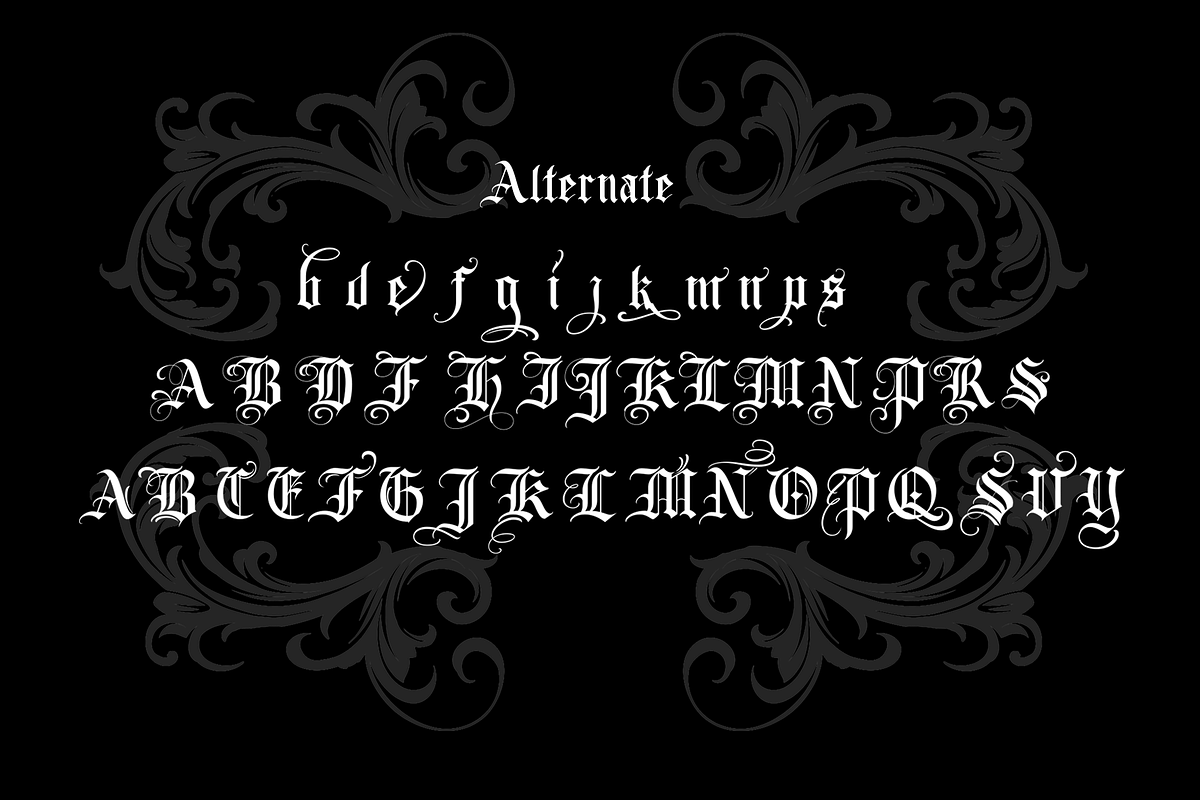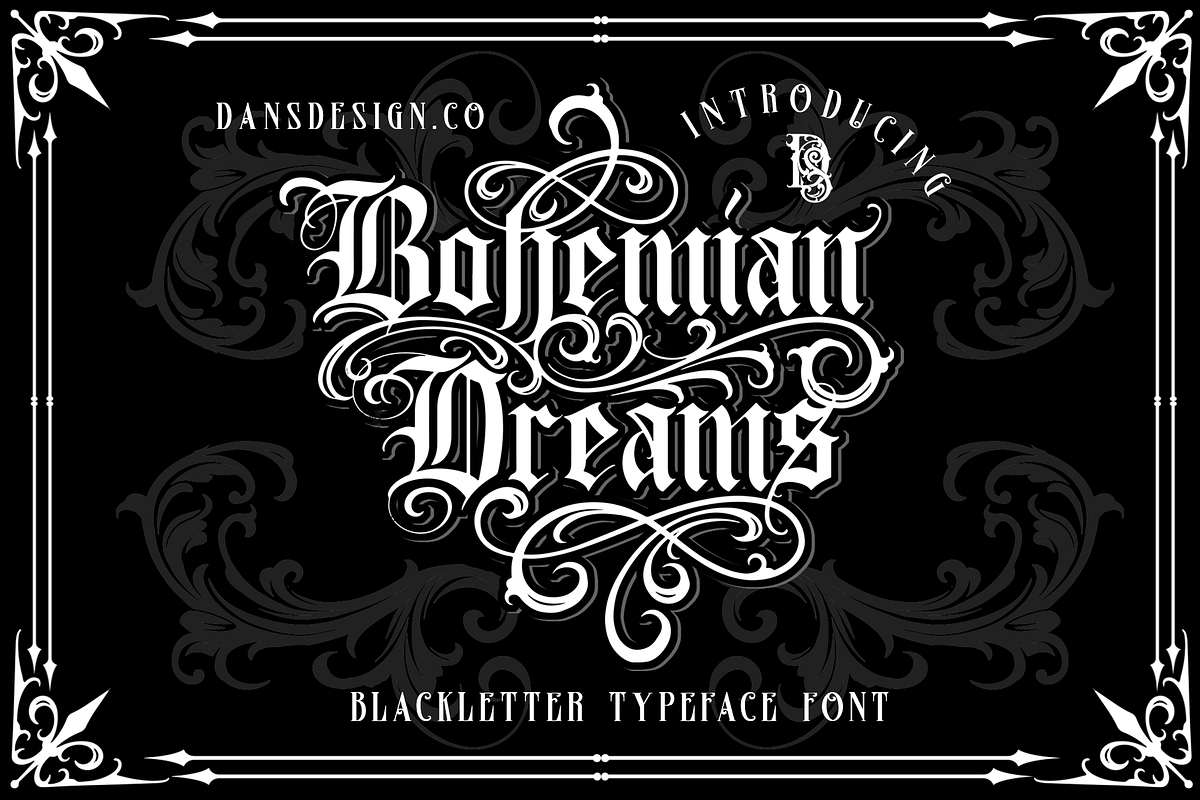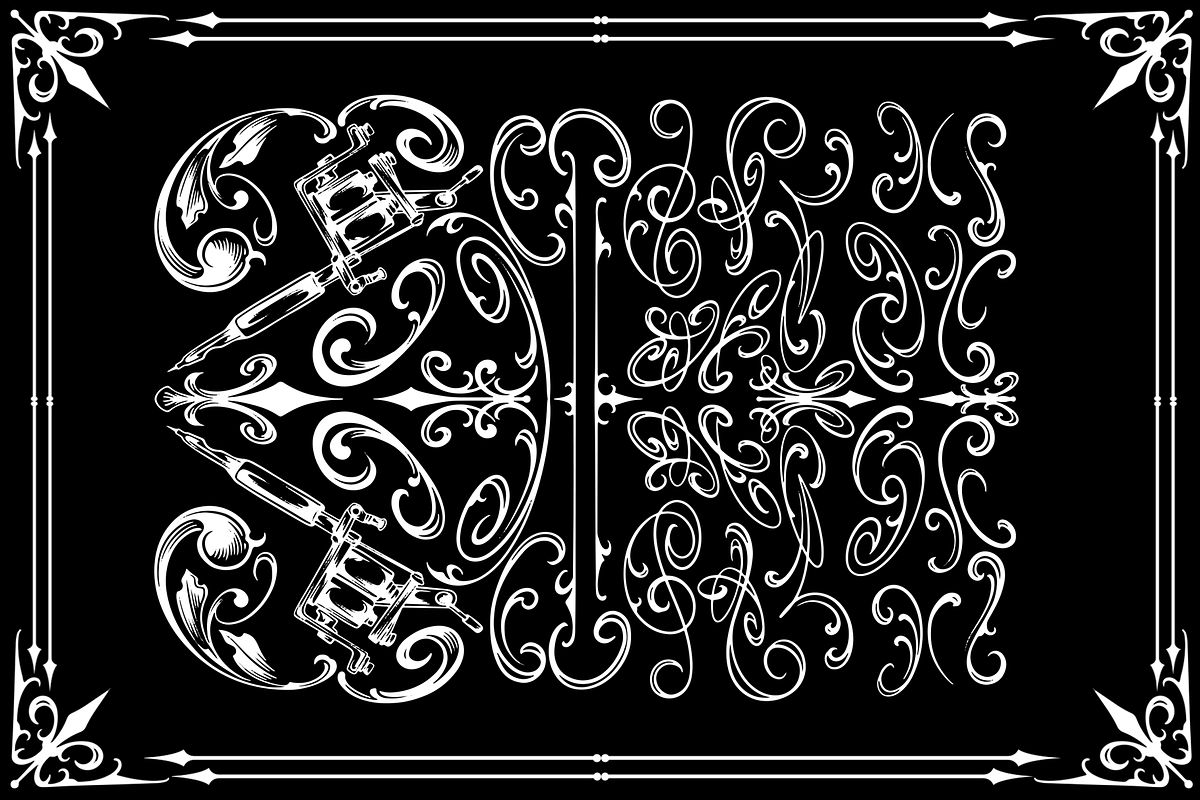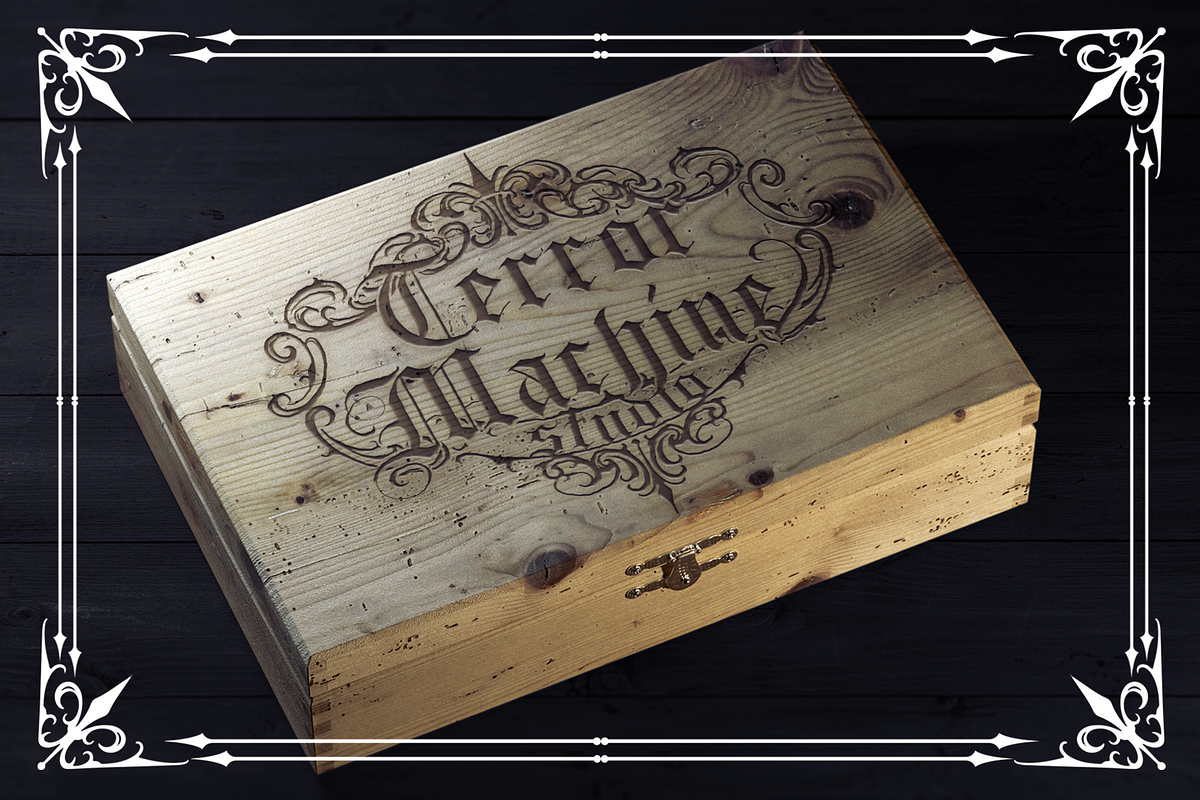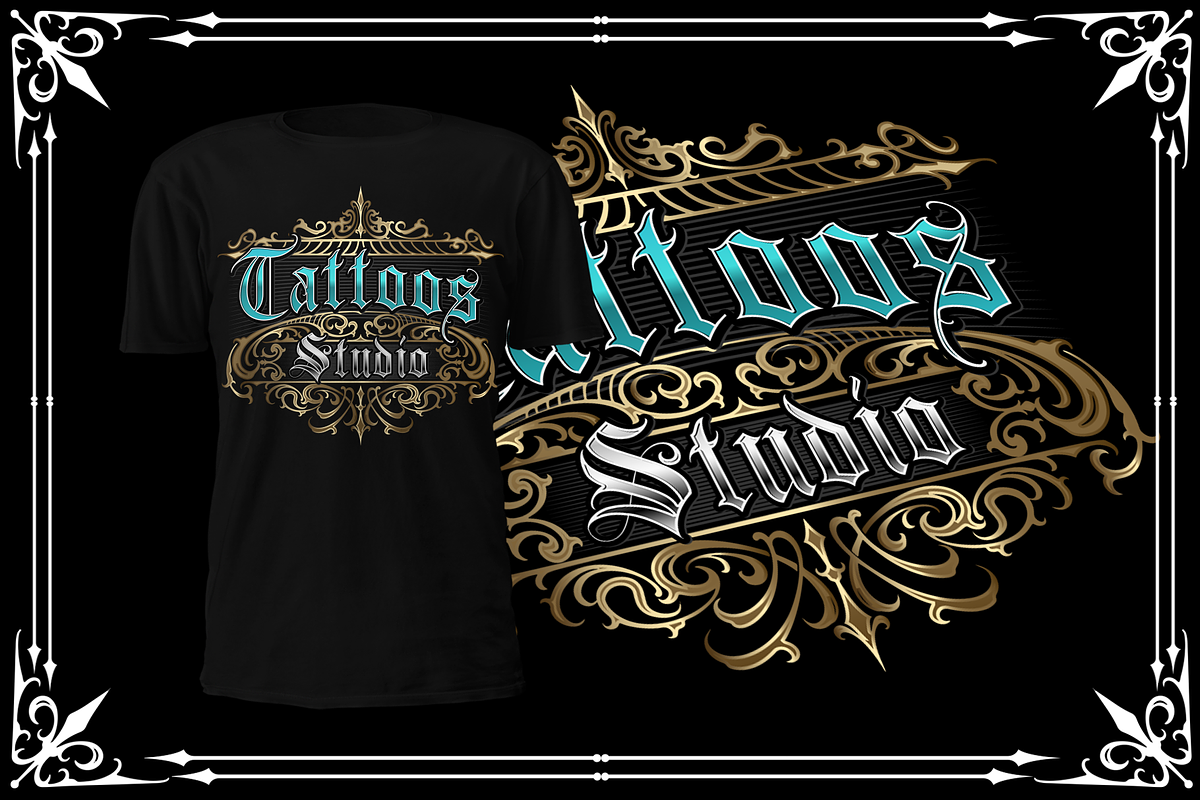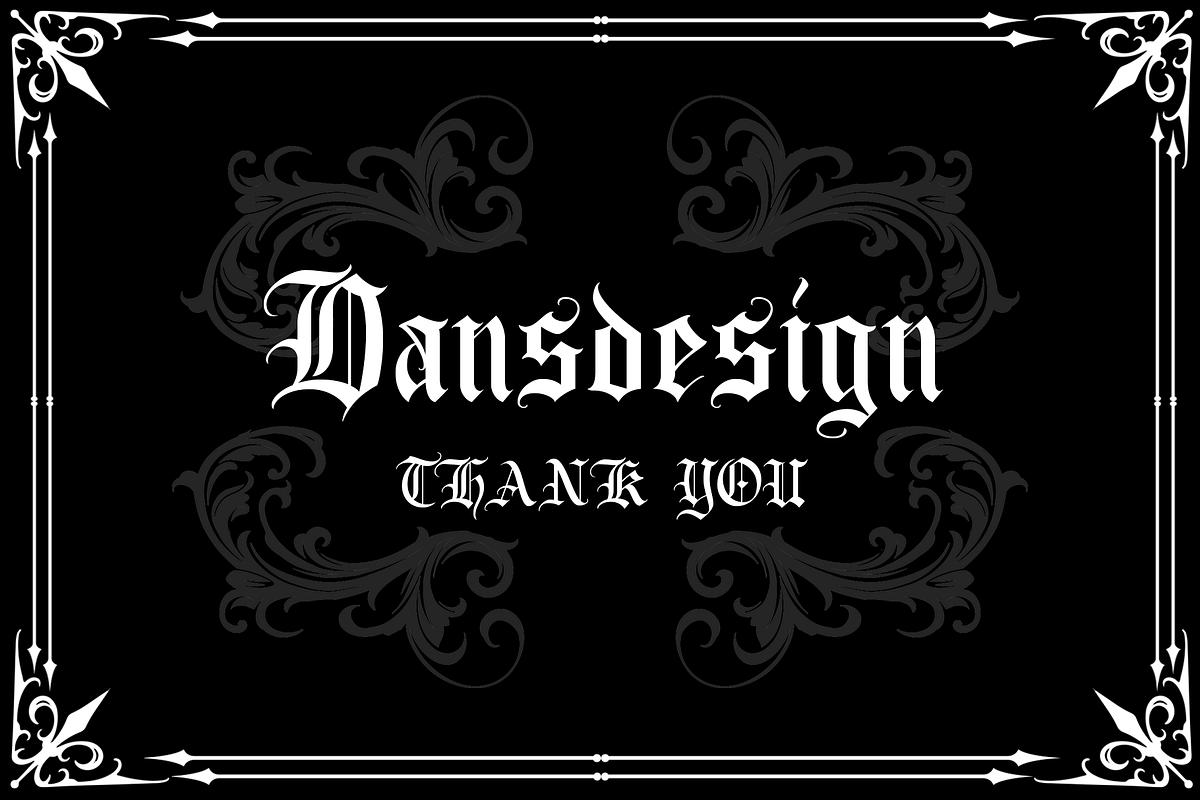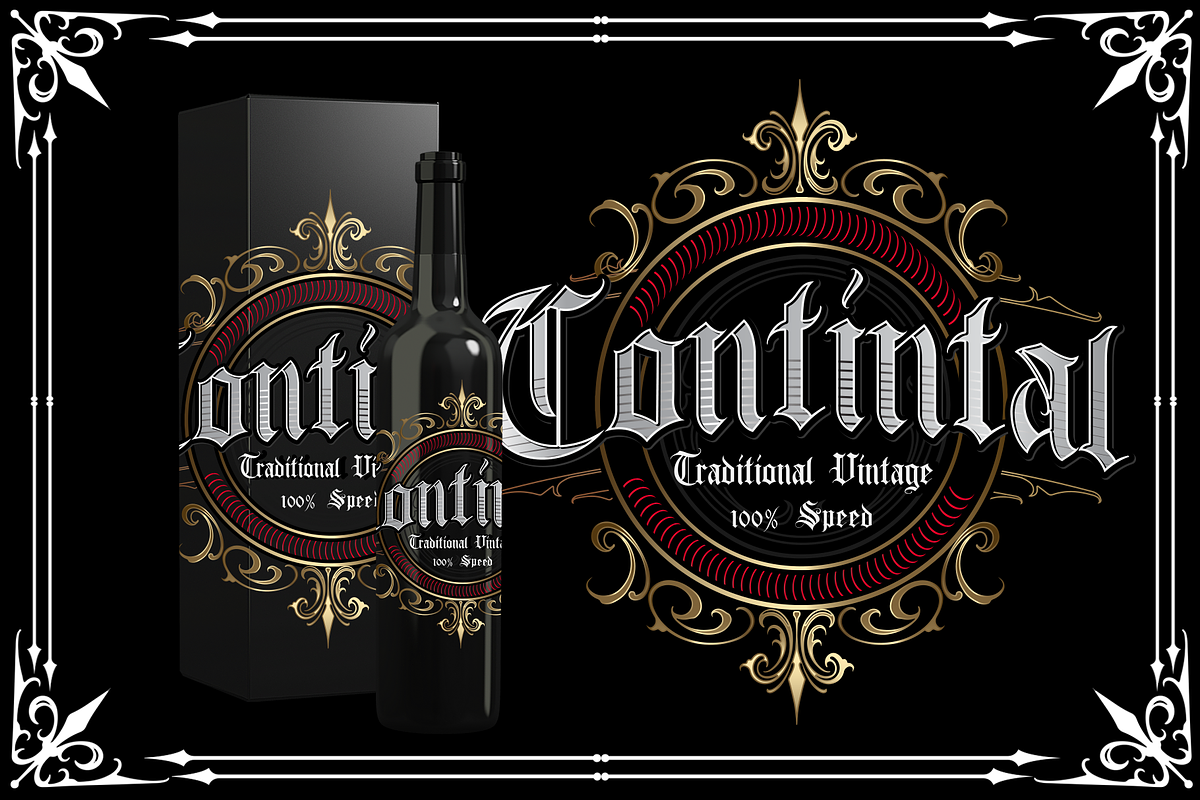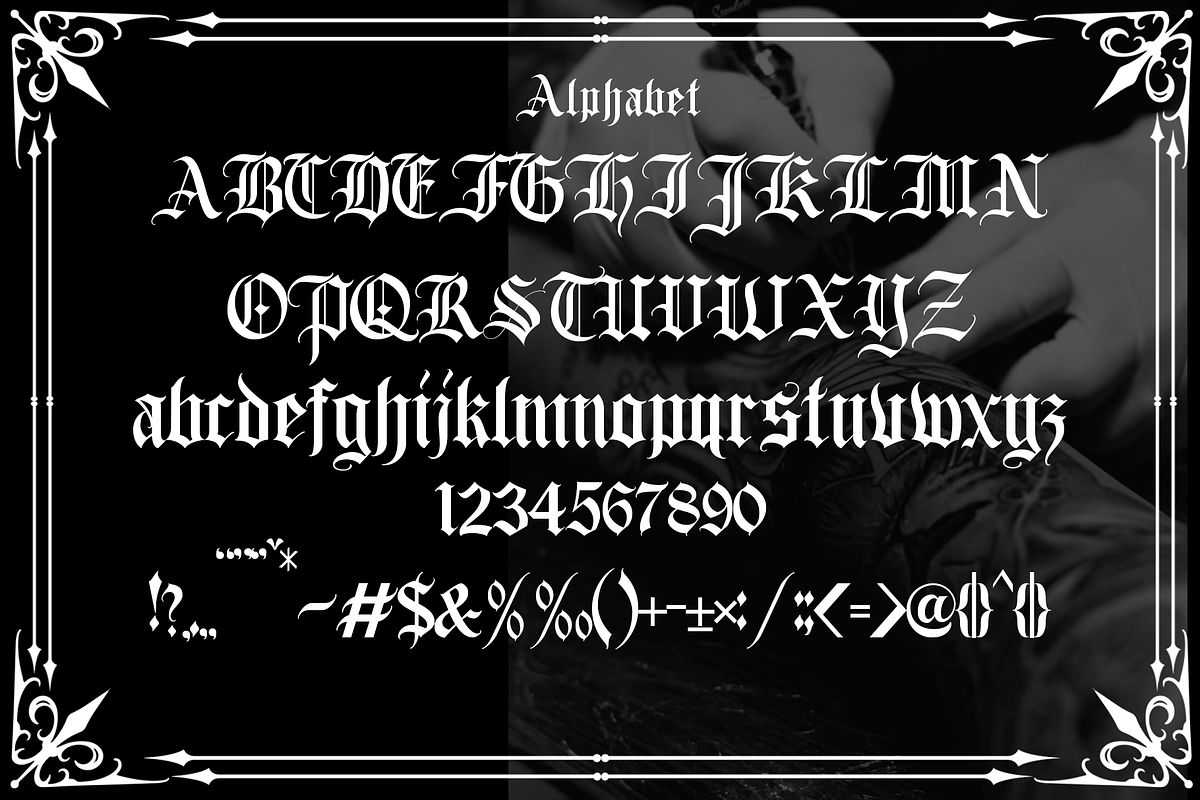
Bohemian Dreams
Dansdesign Proudly present our new product Bohemian Dreams This font is made with references to various letters that I combine and design with my style.
* Bohemian Dreams are great and usefull for product logo, poster title, headline, packaging, badge, wedding card logo, clothing brand logo,Vintage design and much more
- Character Set A-Z (Uppercase & Lowercase)